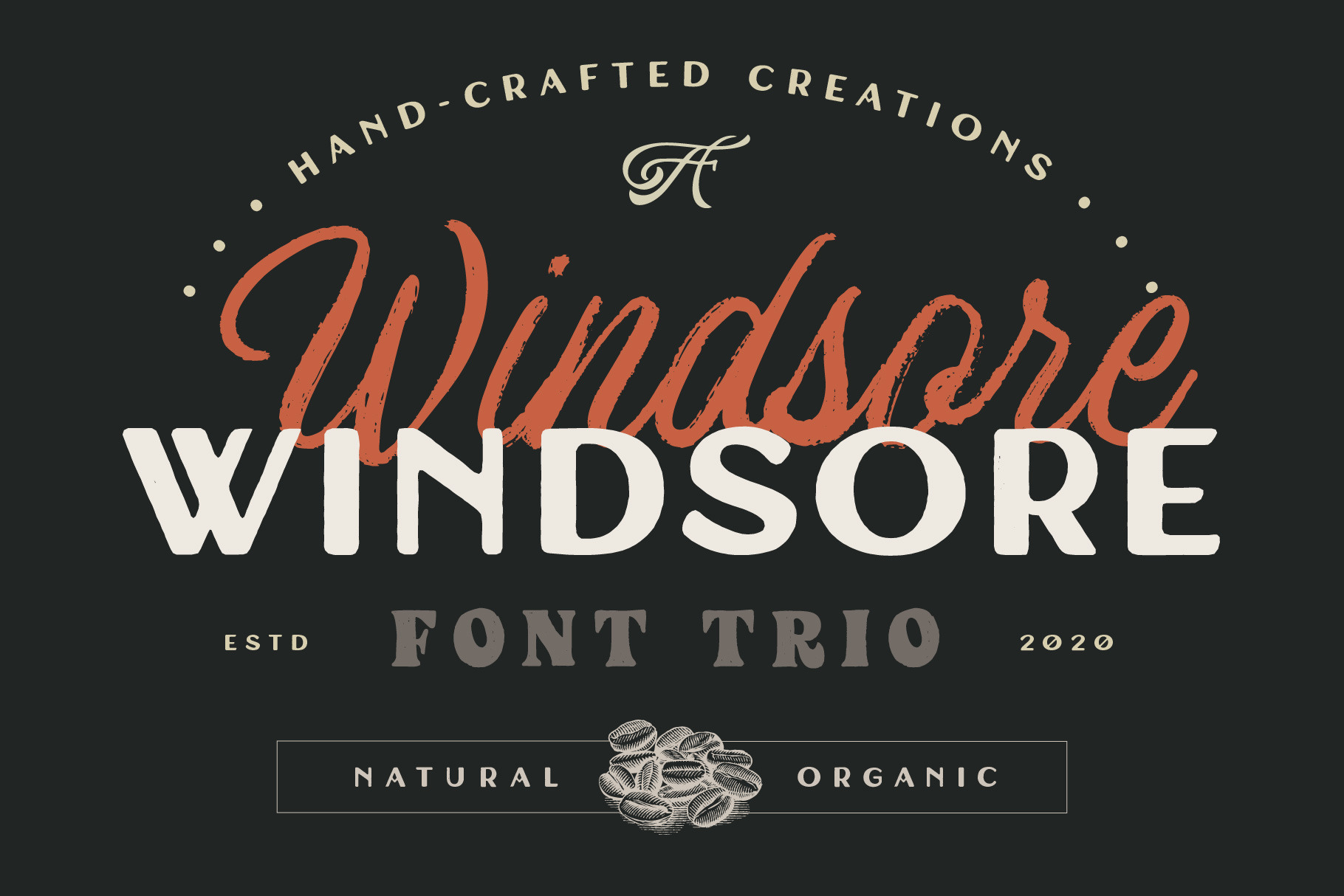
W I N D S O R E - Natural hand crafted Trio font combinations
Windsore is trio combinations of Hand Made fonts. inspired from the Lettering Artist who made the unique combination handlettering type style. Windsore Style is Great for Natural & Organic, Outdoor, Vintage, Retro, And Etc.
Windsore Serif : Raw & Bold, Complete Uppercase and Lowercase.
Windsore Script : Created with a Dry Brush, gives you a Pure Natural looks of the type.
Windsore Sans : All caps, Less Raw, Perfect for big Headlines or small text with extra kerning.